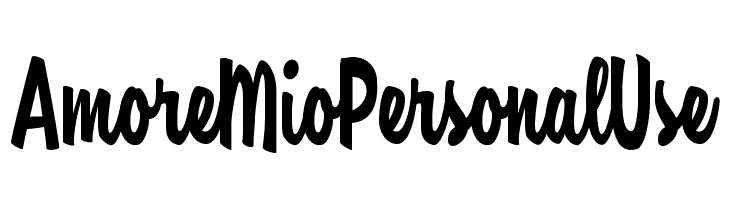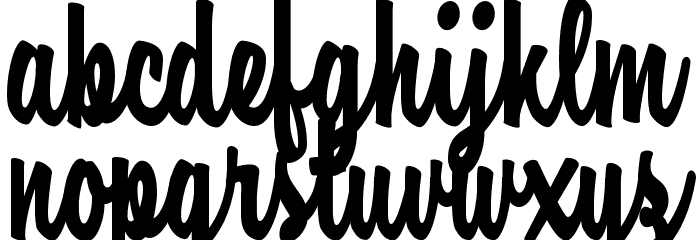
Amore Mio Personal Use Font
Amore Mio Personal Use Description
This font features a playful and bold script style with a handwritten feel. The uppercase letters are tall and slightly condensed, giving a strong presence, while the lowercase letters have a flowing, cursive quality that adds a touch of elegance. The strokes are thick and consistent, providing a uniform appearance throughout. The font's whimsical nature makes it suitable for creative and informal applications. It includes a full set of uppercase and lowercase letters, numerals, and a selection of special characters, ensuring versatility in design projects.
A bold, playful script font with a handwritten style from Uncategorized fonts.
- Proposed Projects: Ideal for greeting cards, logos, posters, and playful branding materials.